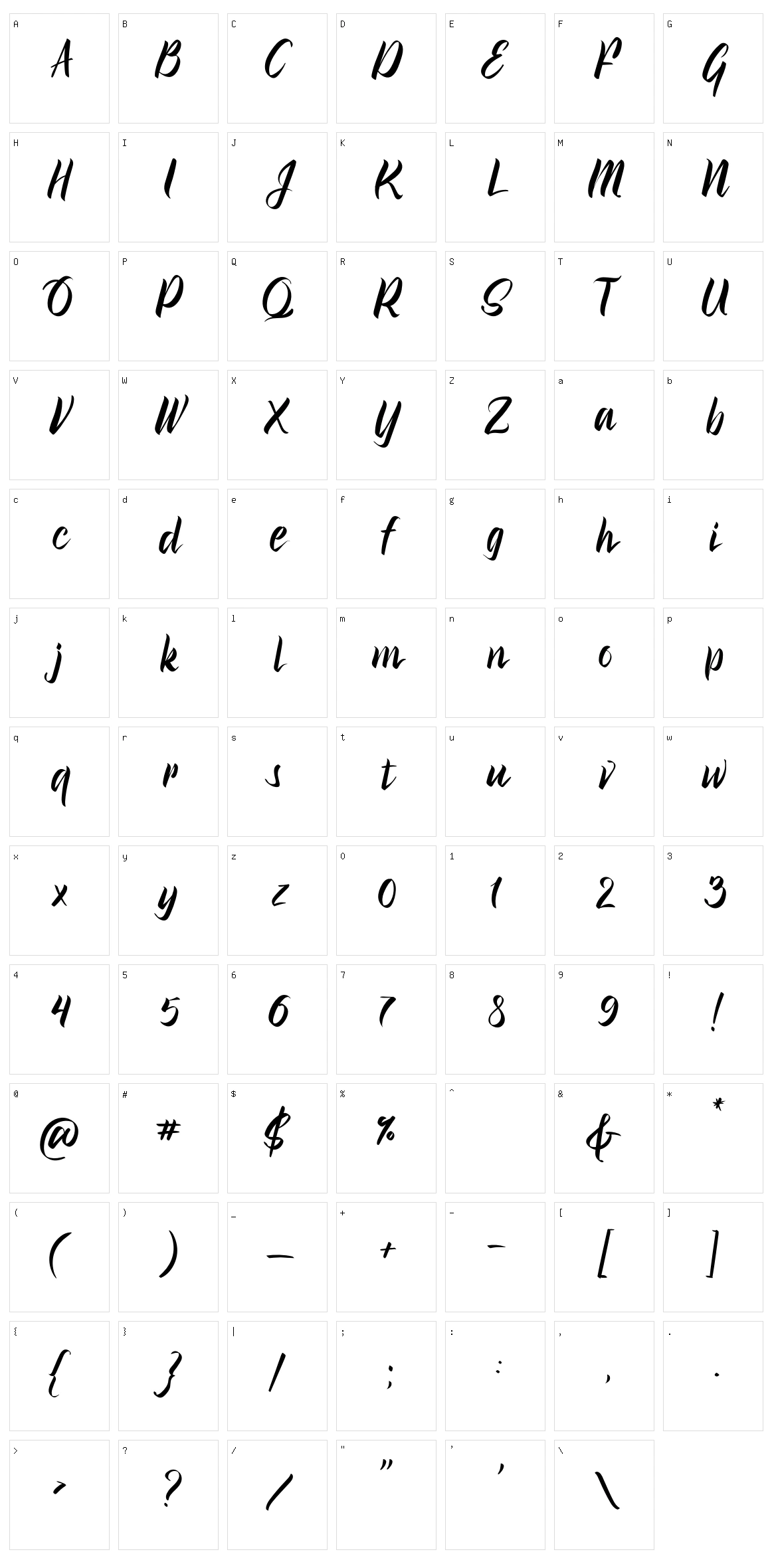
The free font Brush Fila is carefully designed by C?o Fila Lettering, showcasing a thoughtful balance of creativity and usability and falls under the Script font style. When you download the ZIP file, it contains only 38.9 KB of font files, making it lightweight and quick to download. Please review the license details below to understand permitted usage and distribution rights. If license information is not available, we recommend using this font for personal projects only or contacting the author directly for commercial usage permissions.